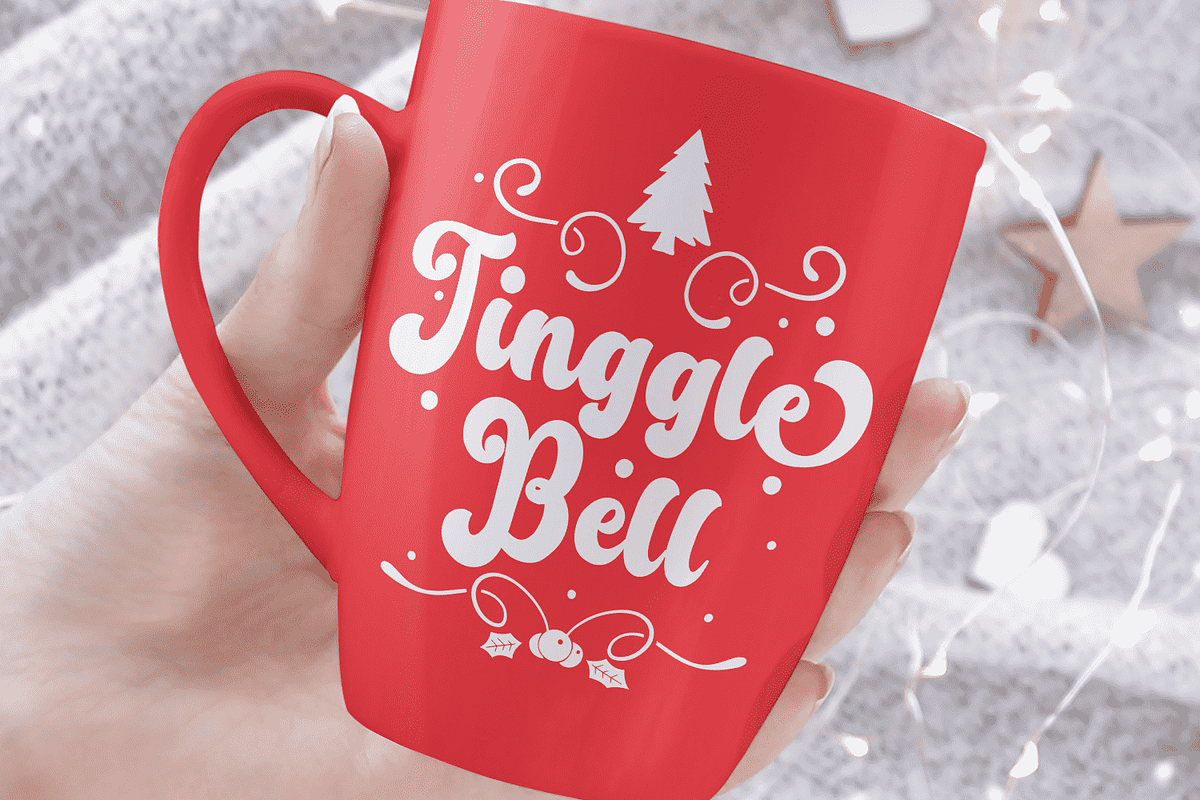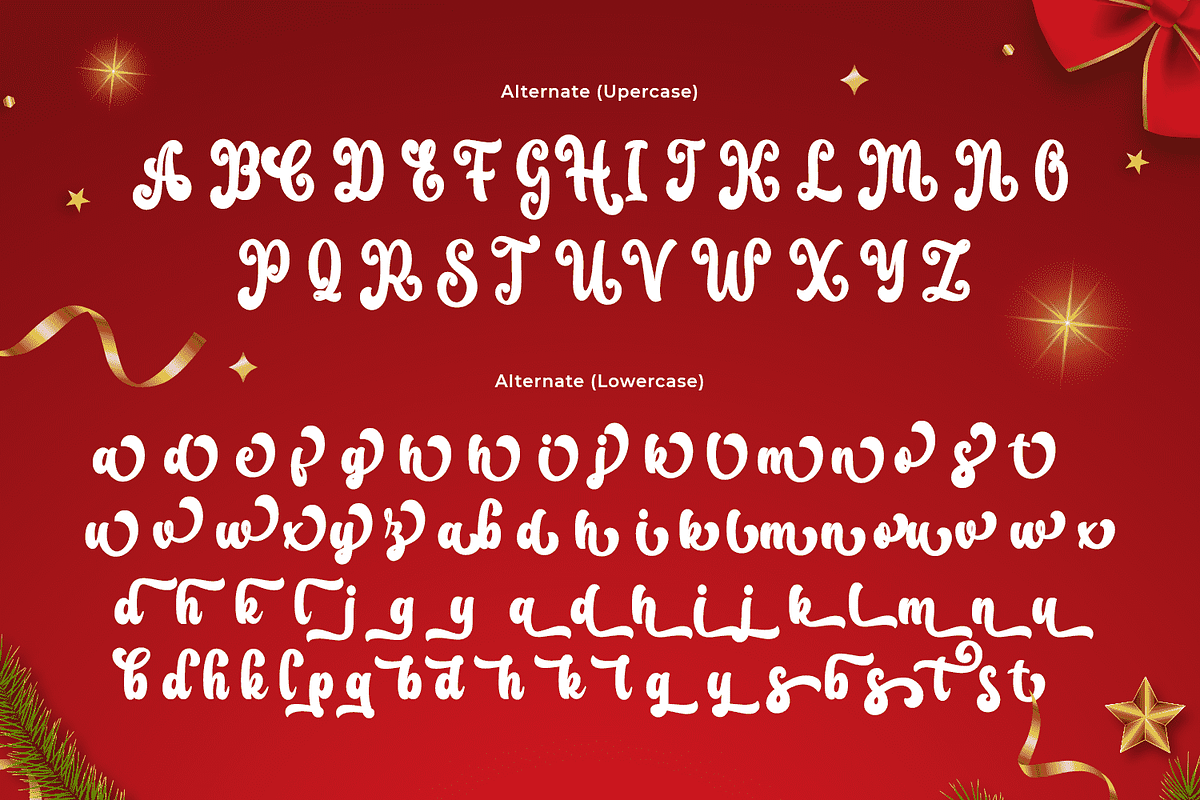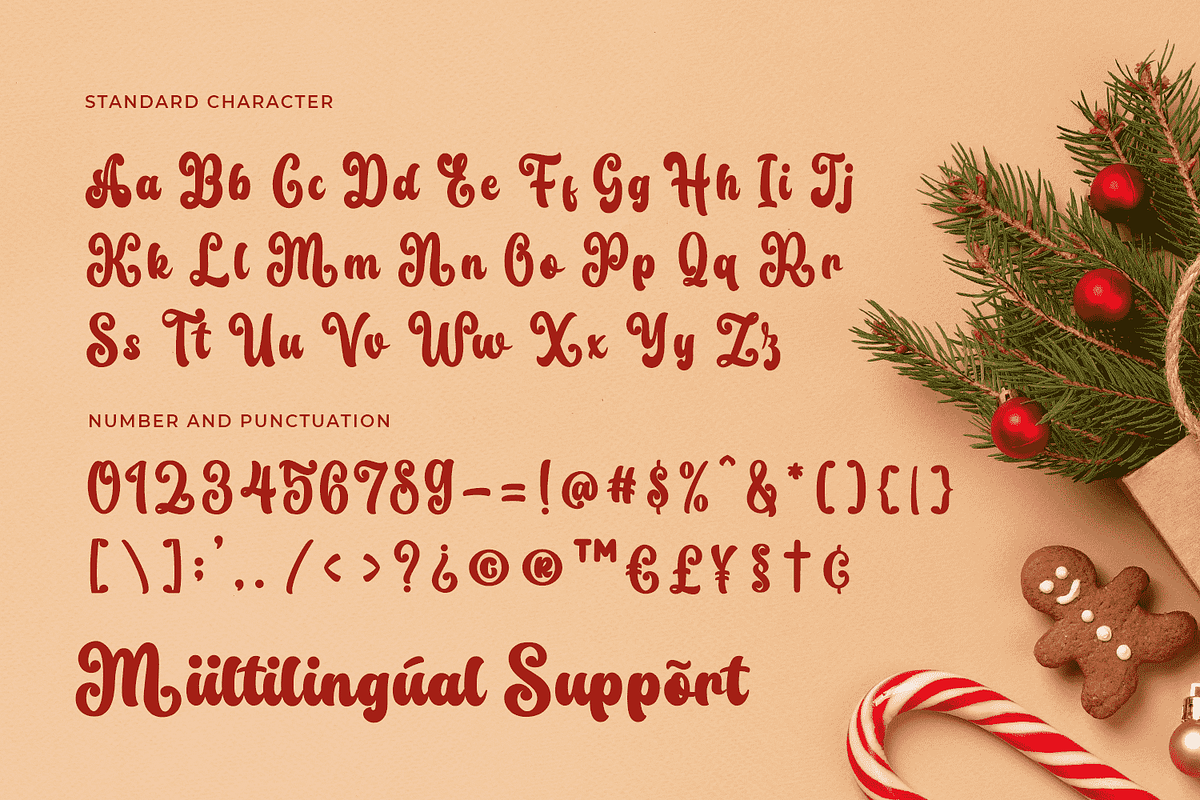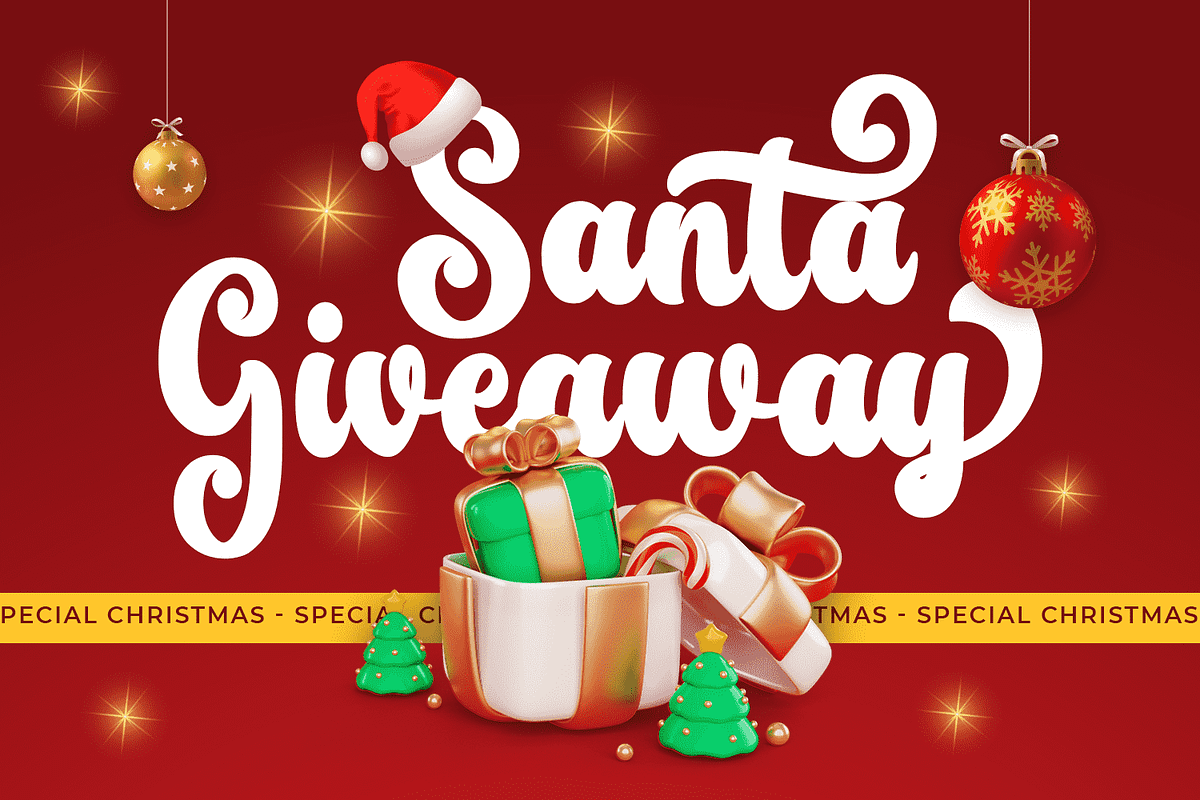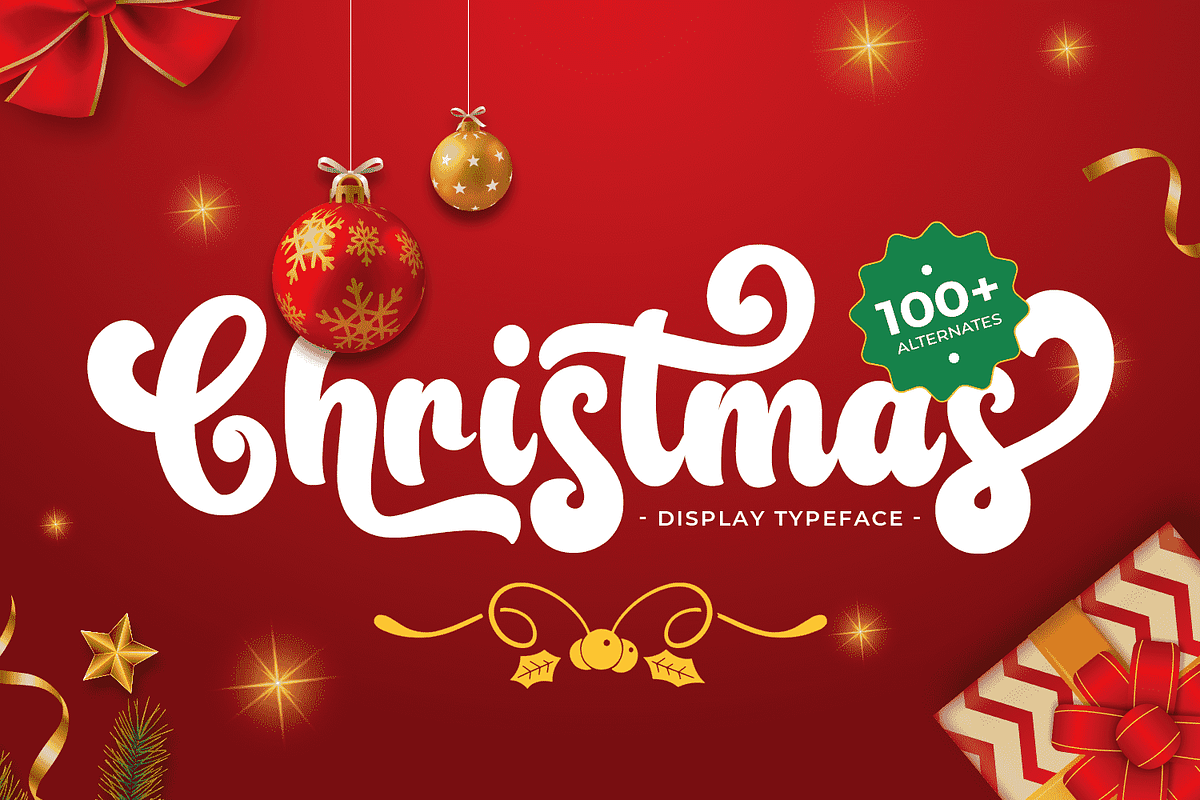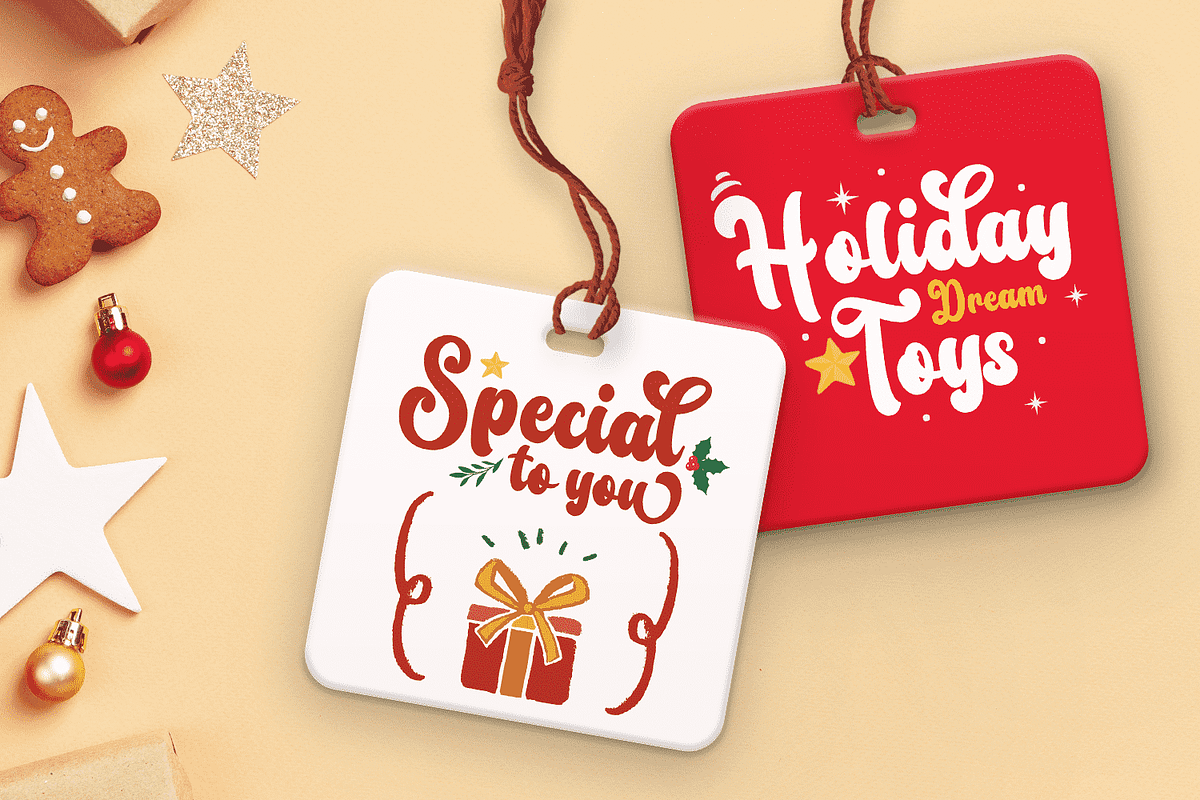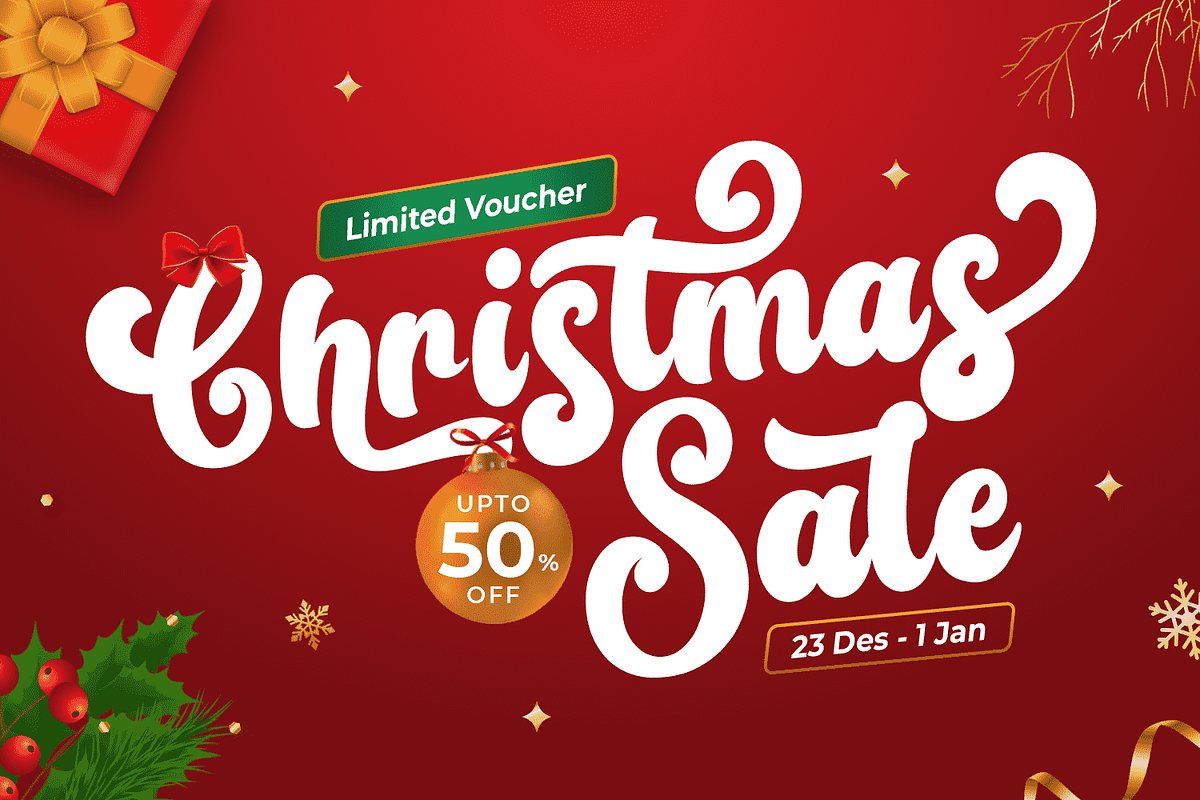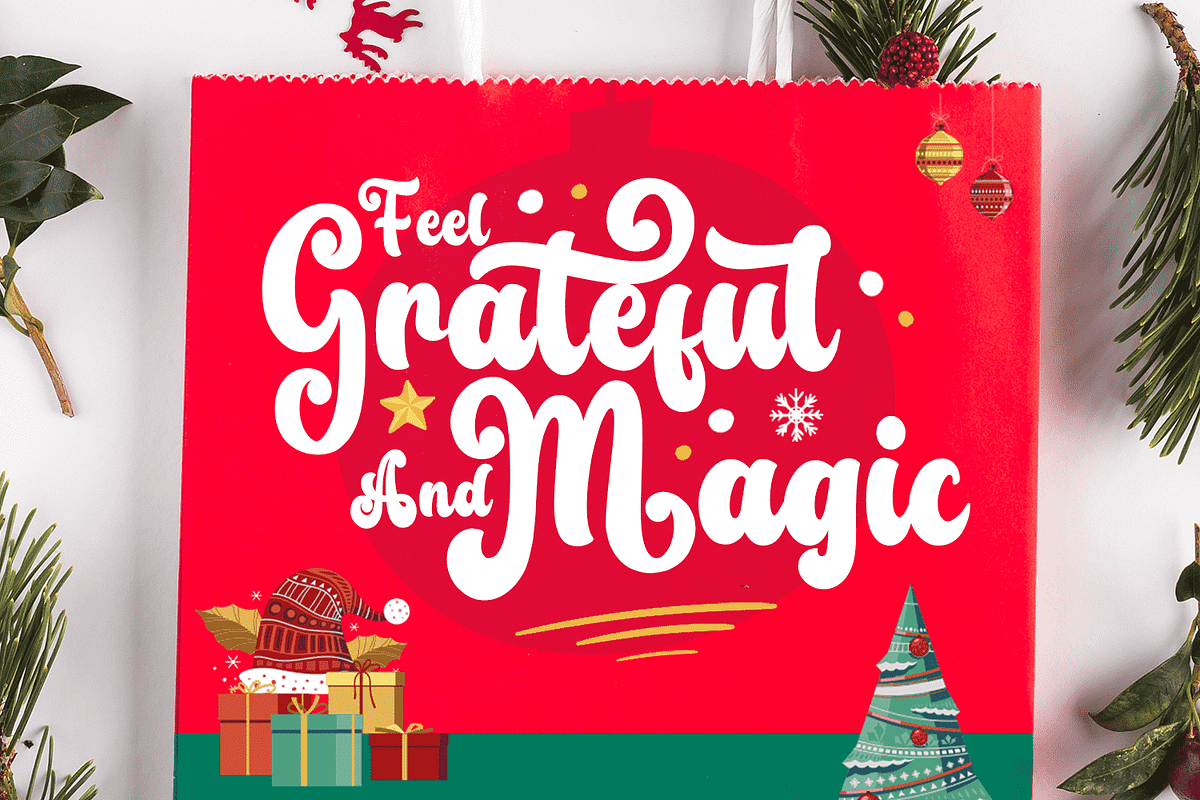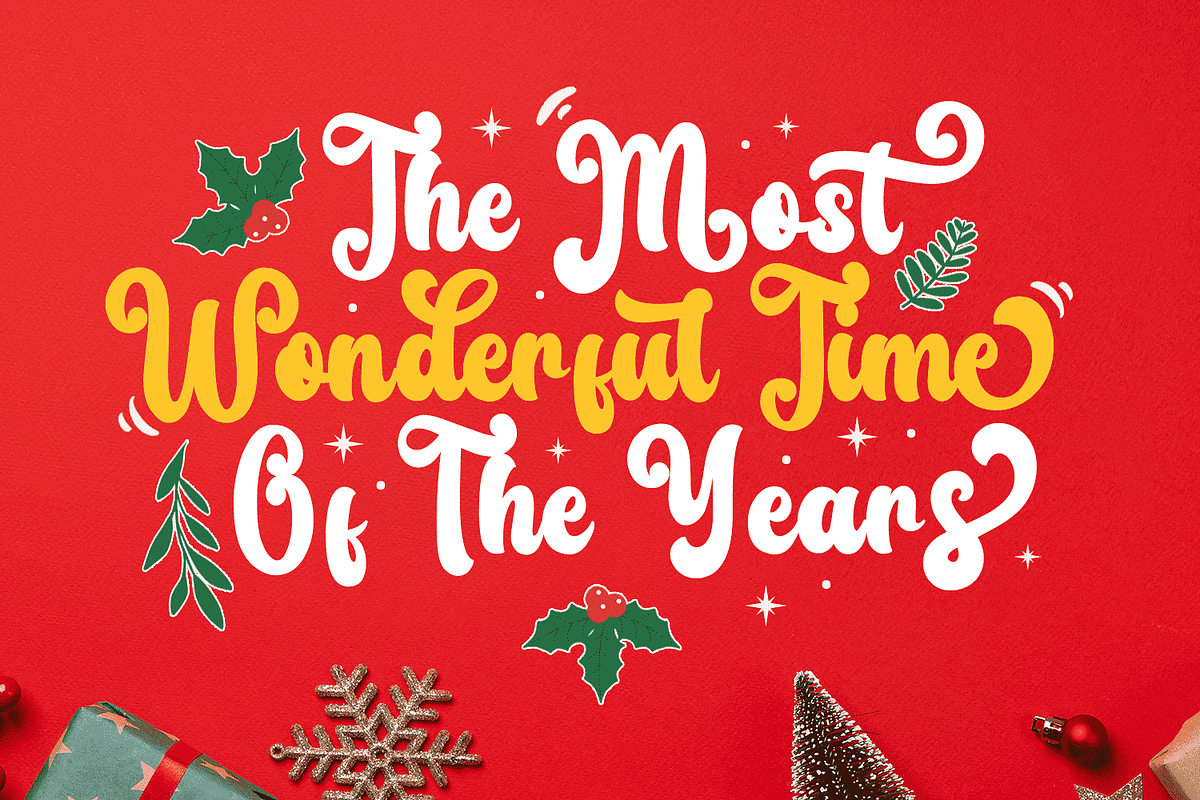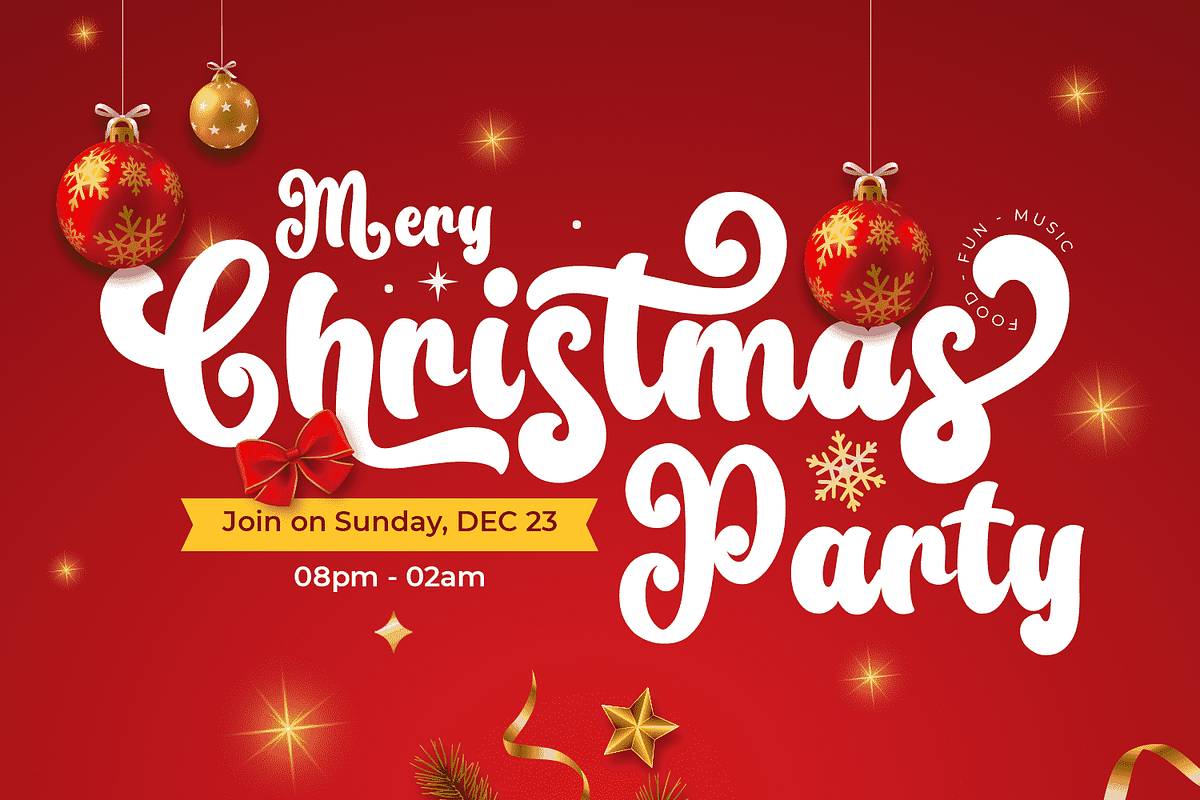
Christmas
Christmas is a sweet and delicate handwritten font, brimming with warmth and charm. Its dainty and joyful style makes it the perfect choice for designs that require a romantic, personalized touch. Whether you're crafting wedding invitations, holiday cards, or heartfelt messages, Christmas adds a festive flair to every project.
Ideal for both crafting and branding, this versatile font enhances everything from home decor to business logos. The bold script style brings an elegant and joyful spirit to your designs, making it perfect for creating beautiful frames, stationery, book covers, and more. Let Christmas elevate your projects with its enchanting and timeless look.
What makes Christmas truly special is its PUA encoding, which grants easy access to all glyphs and ligatures. This feature allows for effortless customization, enabling you to create stunning designs with just a few clicks. The font's versatility ensures that it can adapt to any project, from holiday decor to magazine layouts, marketing materials, and beyond.
Fall in love with the Christmas font's delightful and elegant style. Its unique blend of sweetness and sophistication is perfect for adding a personalized touch to your designs. Whether you're creating for a special occasion or enhancing your brand, Christmas will make your work stand out.
Let Christmas inspire your creativity and bring your ideas to life. With its joyful curves and delicate strokes, this font is sure to leave a lasting impression on all who see it. Embrace the festive spirit with Christmas and transform your designs into timeless masterpieces!